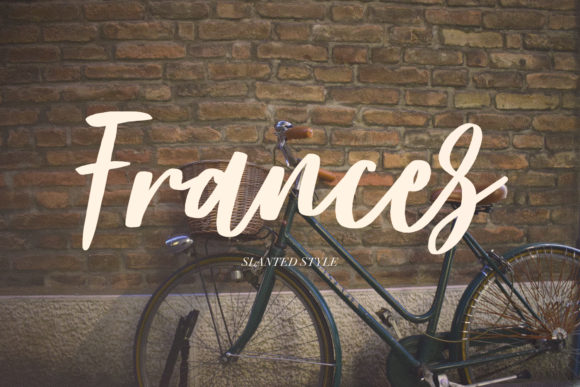
Journey into the world of Frances Font, a calligraphy masterpiece crafted to awaken your designs. This script embraces the beauty of the handwritten word, evoking the allure of heartfelt notes and poetic expressions. With its graceful swashes and alluring curves, Frances Font breathes life into your creations, capturing the essence of elegance and charm.
Immerse yourself in the world of Frances Font, a captivating script that dances across the page like a whisper of artistry. Its flowing strokes, reminiscent of a skilled calligrapher's hand, bring a touch of enchantment to any design. Each letterform is a work of art, carefully crafted to exude personality and charm.
Frances Font is more than just a font; it's an invitation to escape the ordinary and embrace the extraordinary. Let your imagination soar as you explore its endless possibilities. Whether crafting a heartfelt message, designing a stunning logo, or creating captivating social media graphics, Frances Font adds a touch of magic that captivates and inspires.
With Frances Font, you have the power to transform the mundane into the magnificent. Its versatility knows no bounds, making it an ideal choice for a wide range of projects. From enchanting wedding invitations to playful branding designs, Frances Font effortlessly elevates your creations.
Unlock the boundless potential of Frances Font today and elevate your designs to new heights. Experience the allure of handwritten artistry, the charm of flowing curves, and the magic of a font that speaks to the heart. Let Frances Font ignite your creativity and inspire you to create designs that leave a lasting impression.